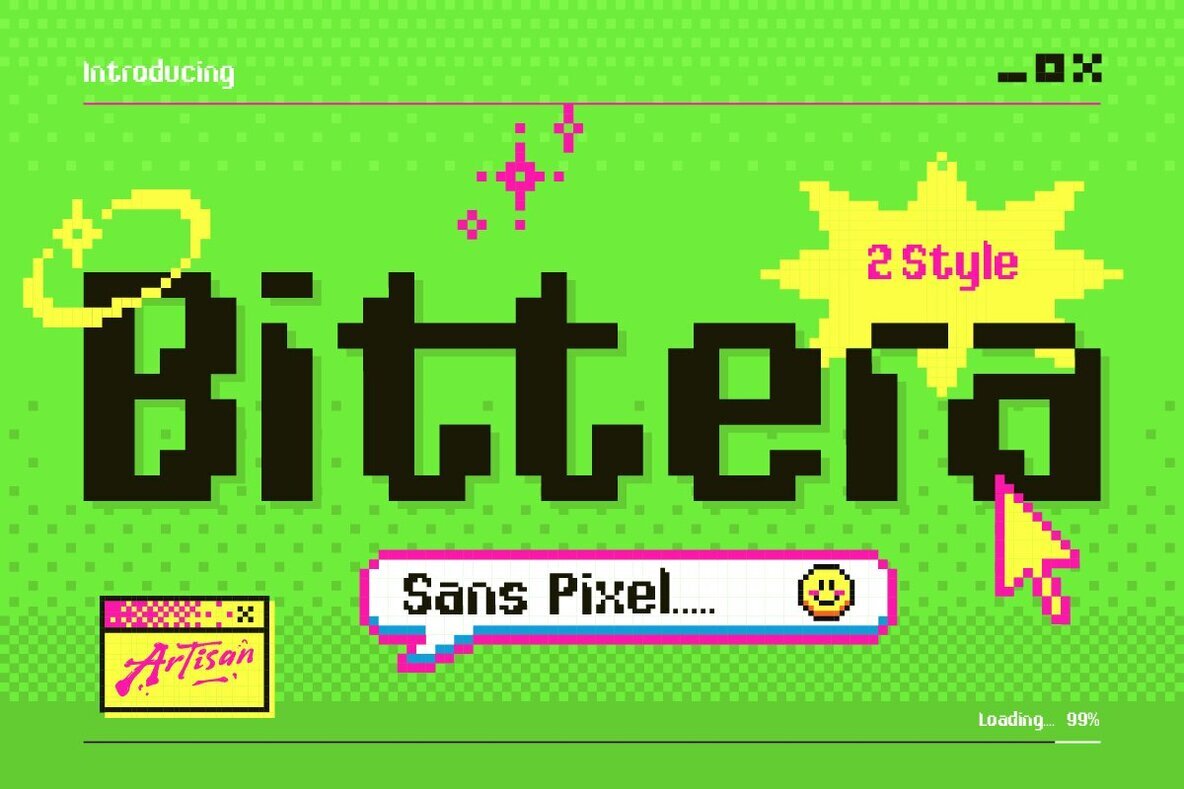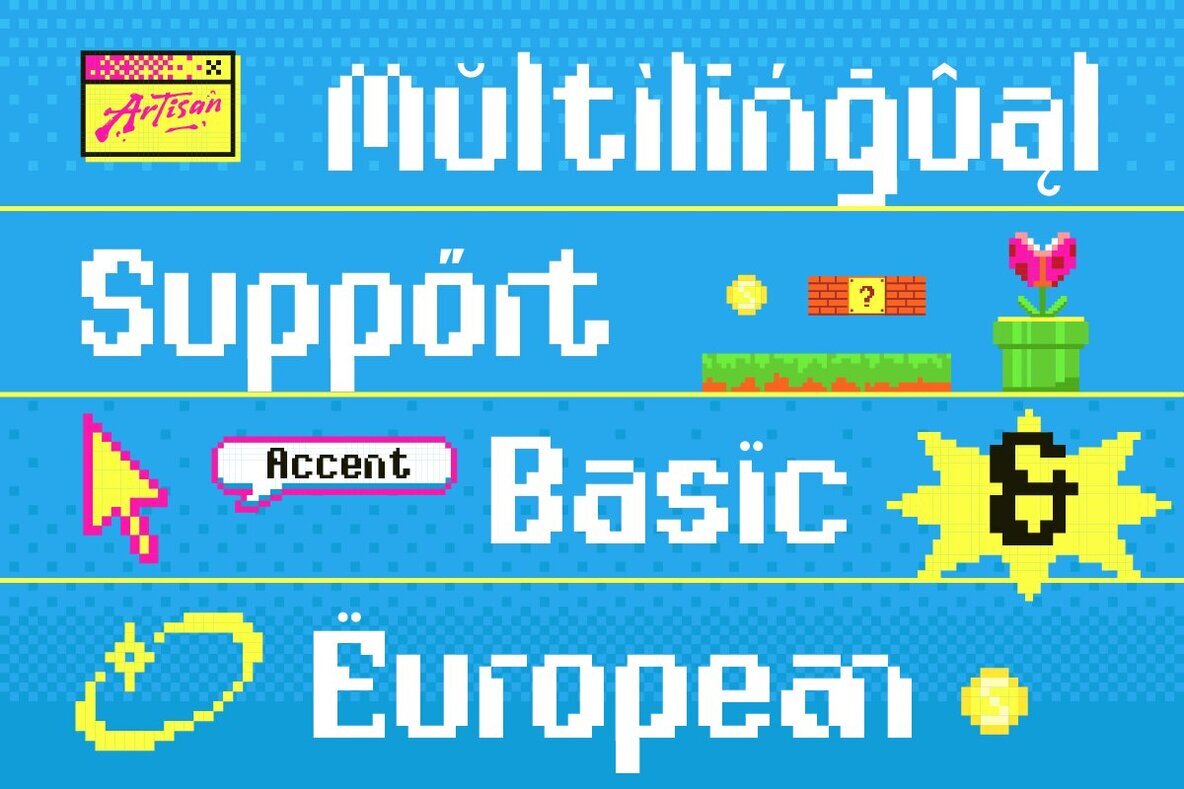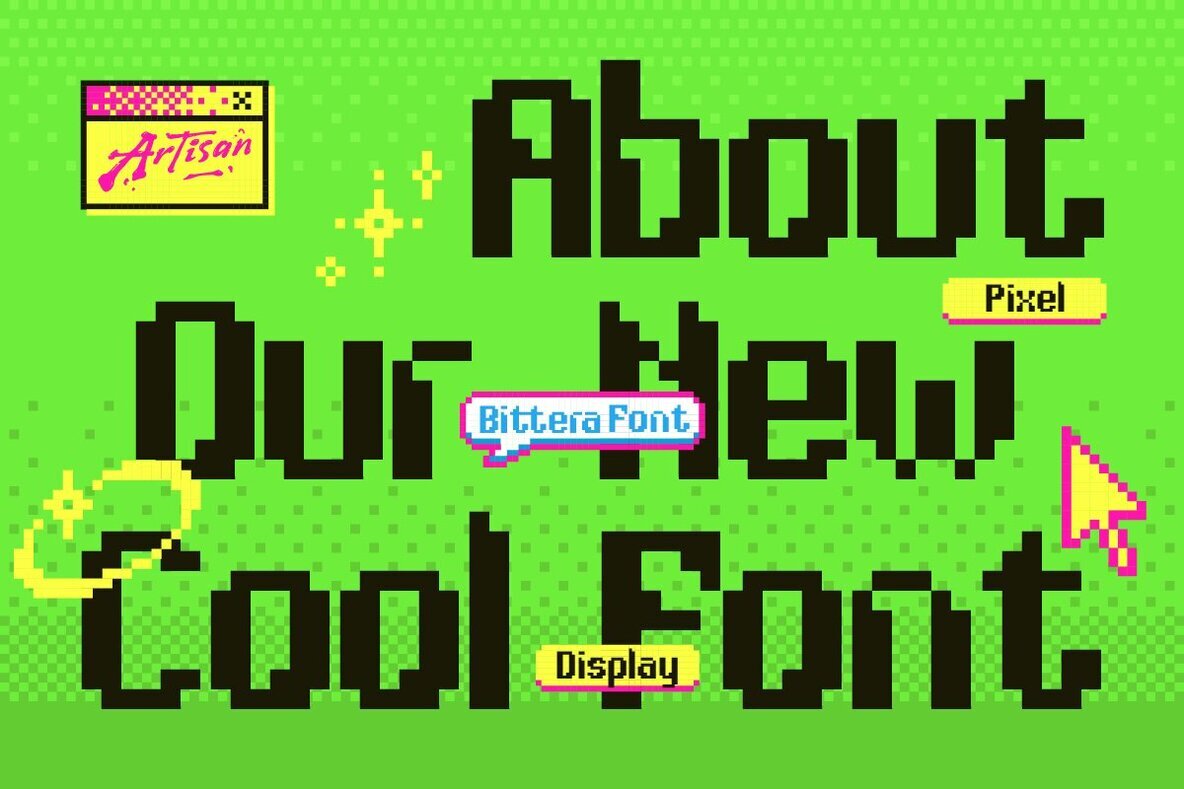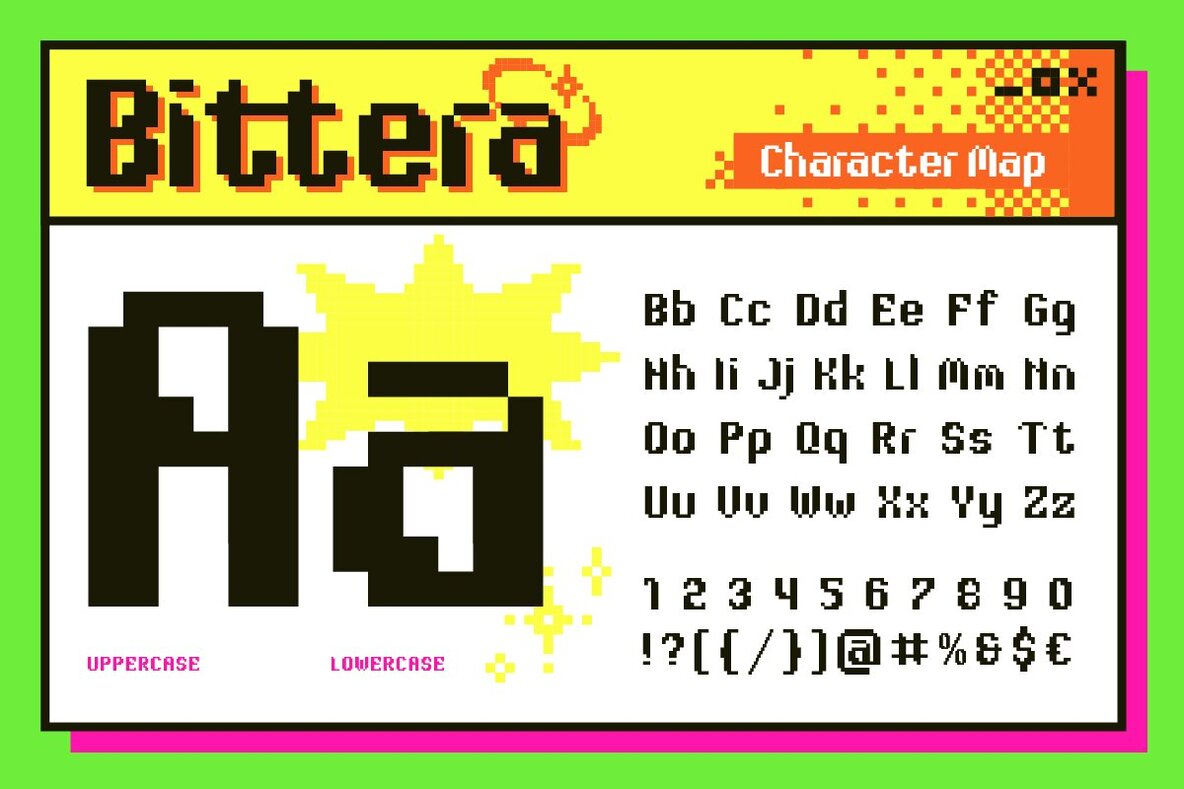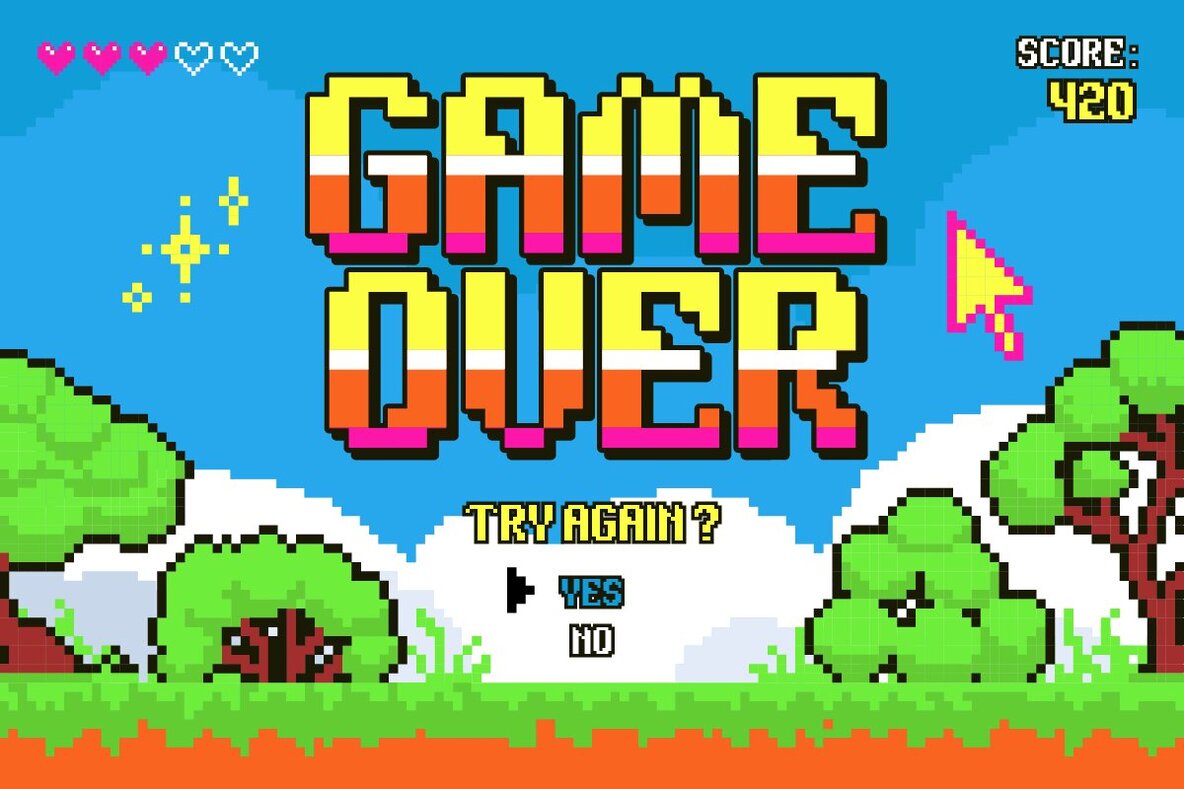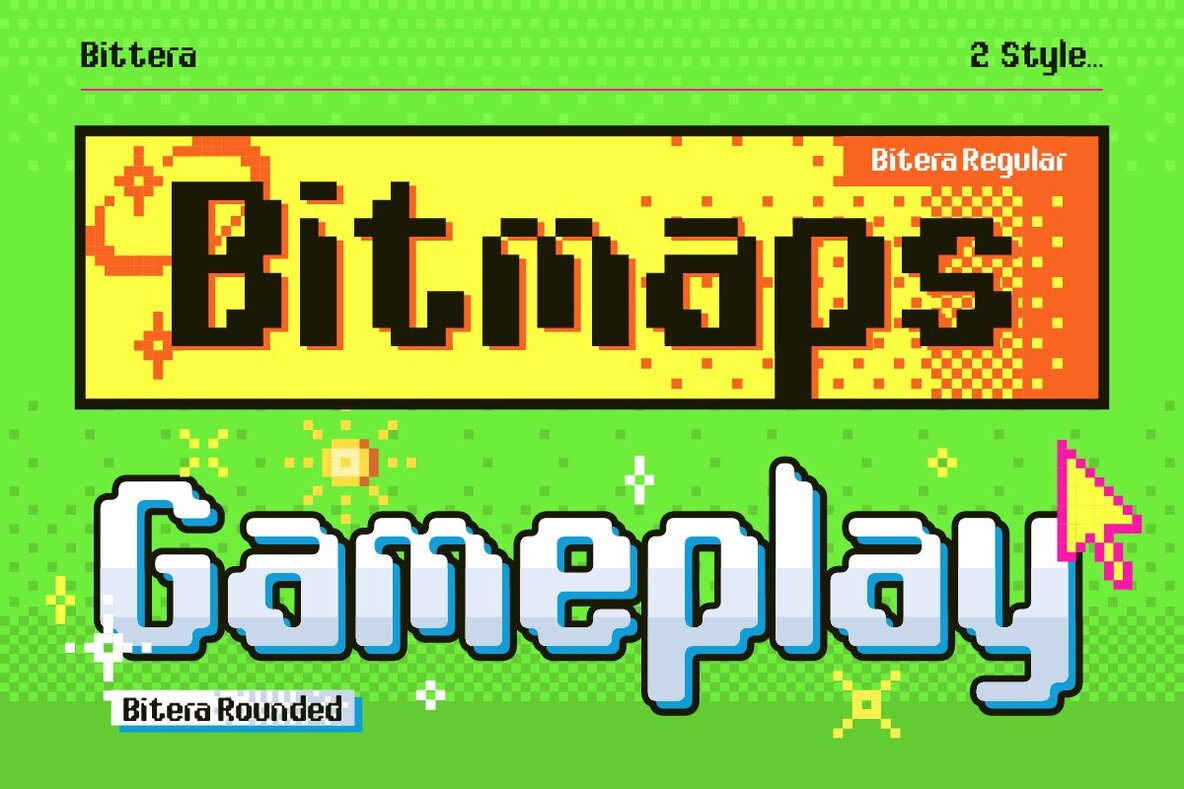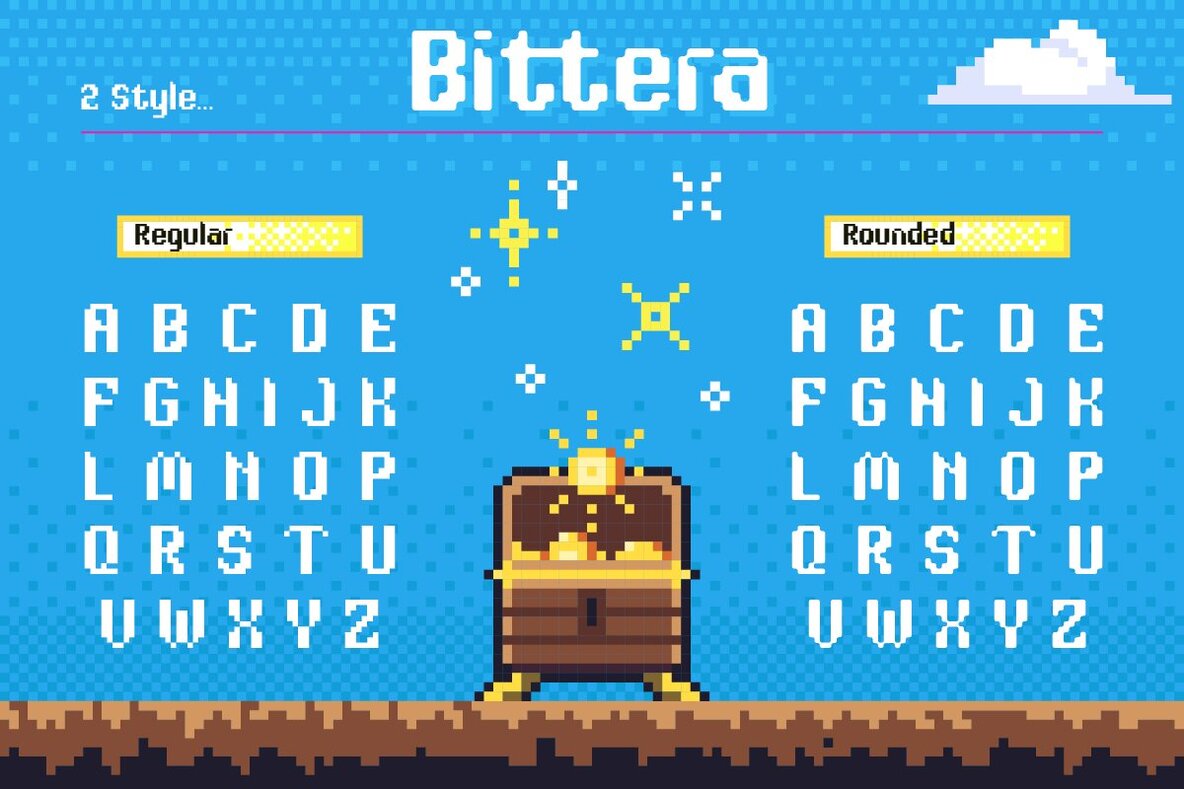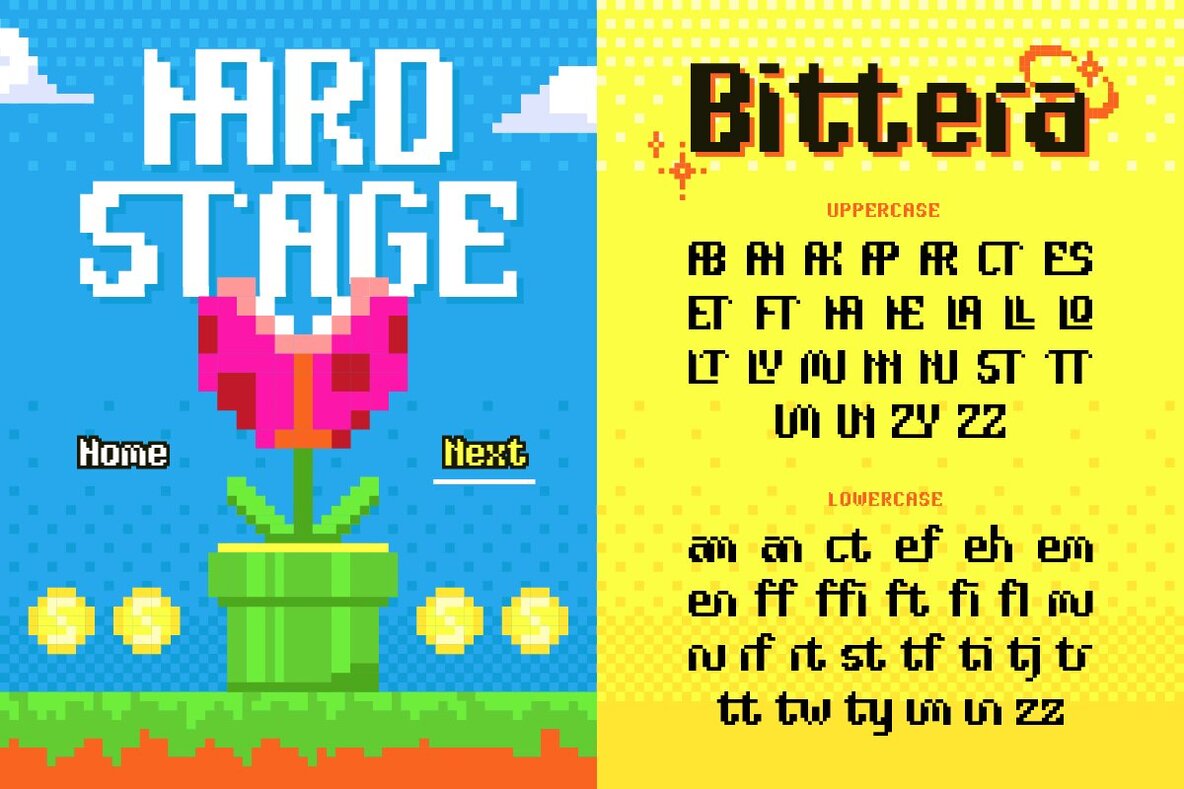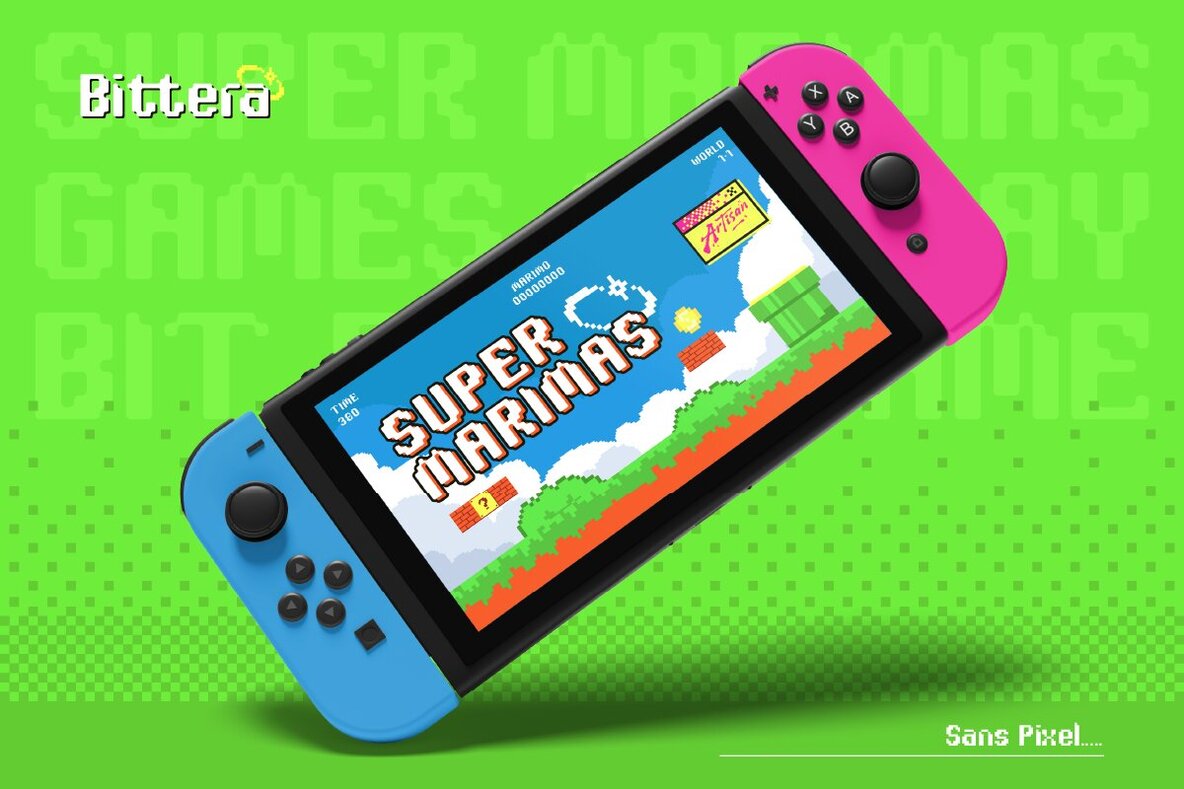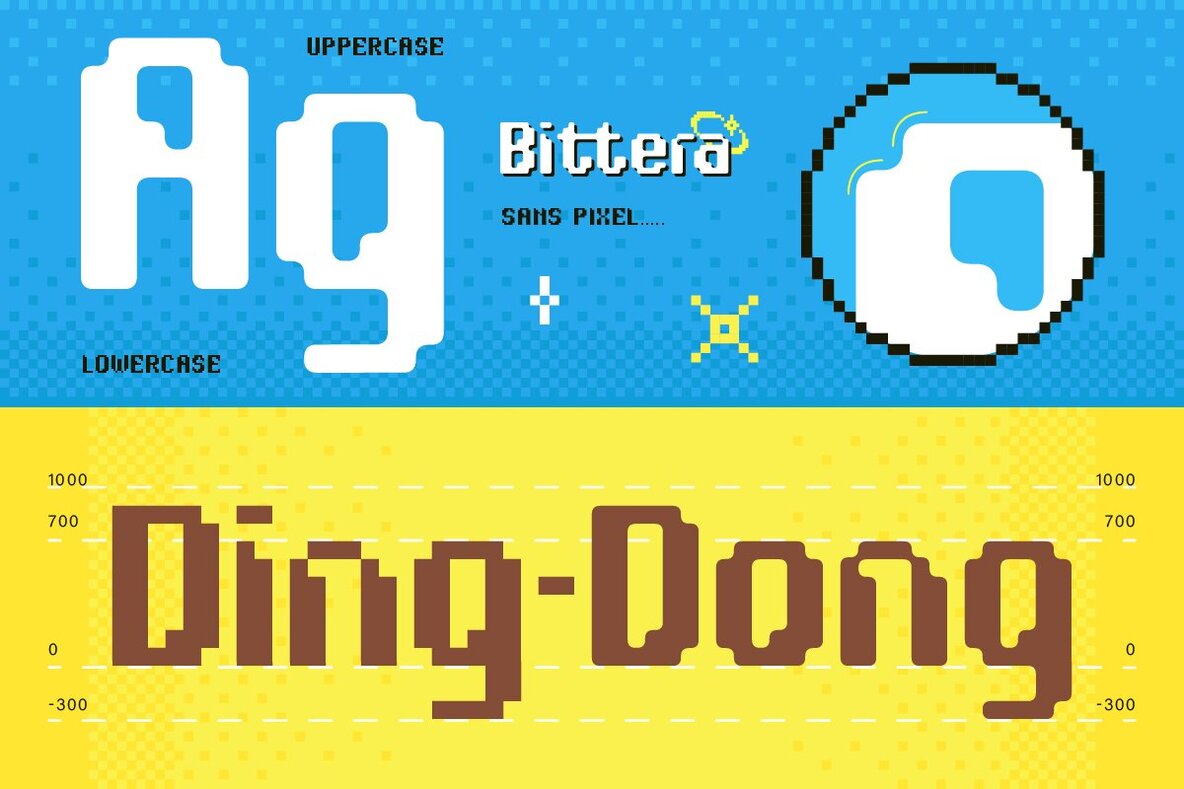
Bittera Font
Bittera Regular
Bittera Rounded
Bittera is your go-to font for channeling the nostalgic allure of the 8-bit era with a modern edge. It’s designed to infuse your creations with a vintage, pixelated charm while offering a contemporary twist that doesn't compromise on clarity or style. Features: With Bittera, infuse your designs with the nostalgic essence of arcade gaming—an essential for any design that aims to capture the spirit of playful creativity.Bittera: Embrace the Retro Charm of 8-Bit Magic